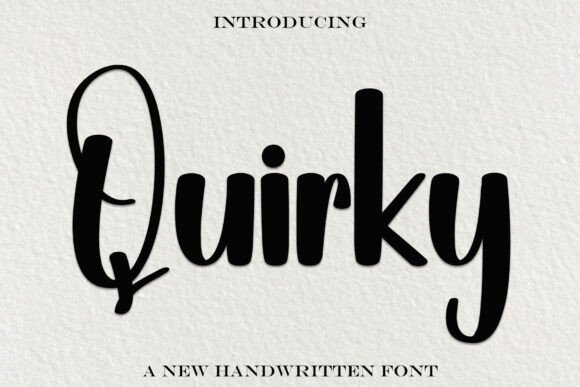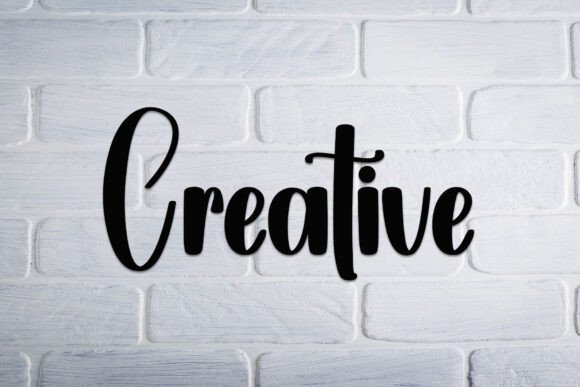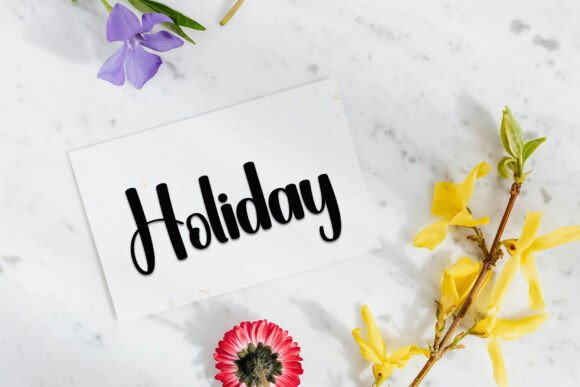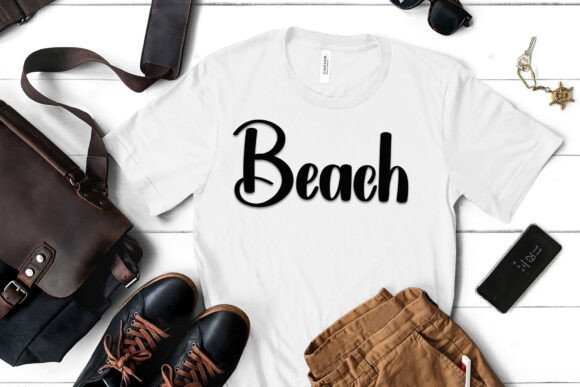
Quirky Font: A Chic Handwritten Font for Modern Branding & DIY!
About the Quirky Font
Welcome to the world of Quirky Font, a typeface that will inspire your next great project. Quirky is a trendy handwritten font with a contemporary atmosphere and impeccable form, inspired by timeless classic calligraphy. It will add elegance and class to any of your design projects.
Quirky Font’s elegant yet casual style makes it ideal for headlines, short text blocks on branding materials, and packaging design where a touch of personality is desired. It also works well for invitations and short quotes within posters. However, its handwritten nature and varying stroke weights make it unsuitable for body text or lengthy paragraphs, and its legibility suffers at smaller sizes, making it less than ideal for UI applications.
To complement its stylish informality, pair Quirky with a clean sans-serif like Open Sans for body copy, balancing its hand-drawn charm with a modern, readable counterpart. Alternatively, a classic serif like Garamond provides a sophisticated contrast, highlighting Quirky’s elegant calligraphic influences.
The overall personality of Quirky Font is sophisticated yet playful, striking a balance between modern trendiness and timeless charm.